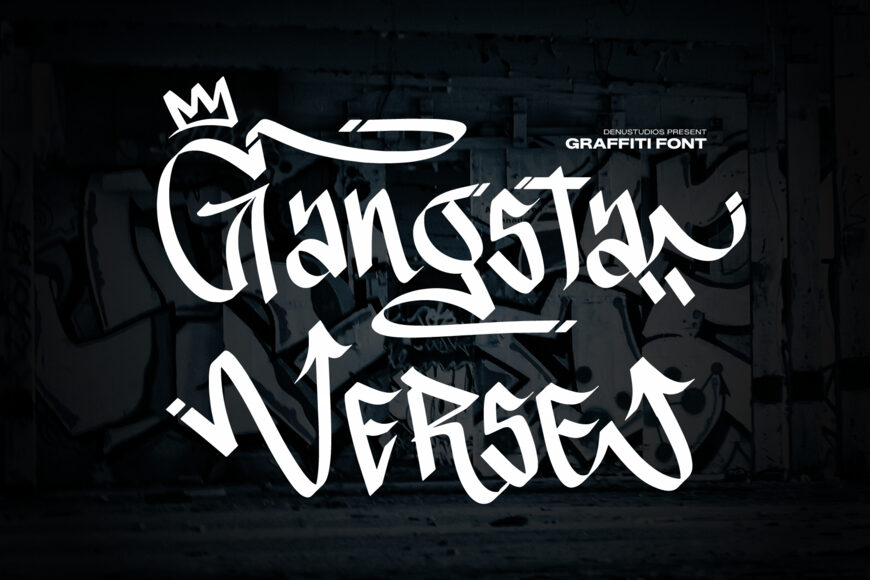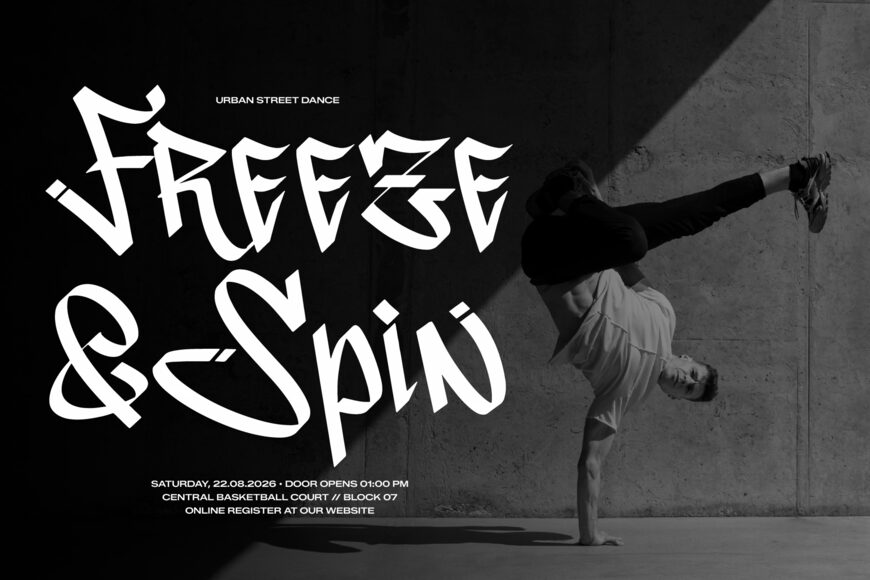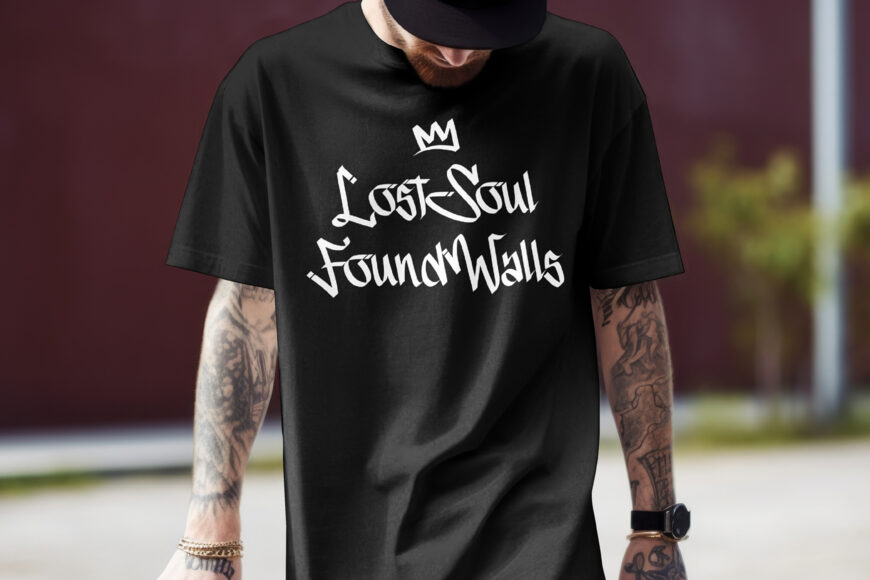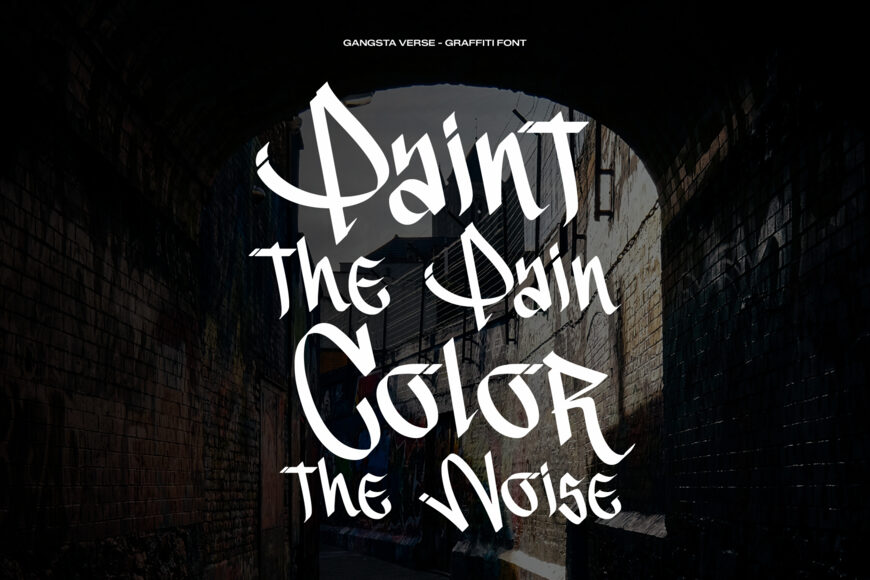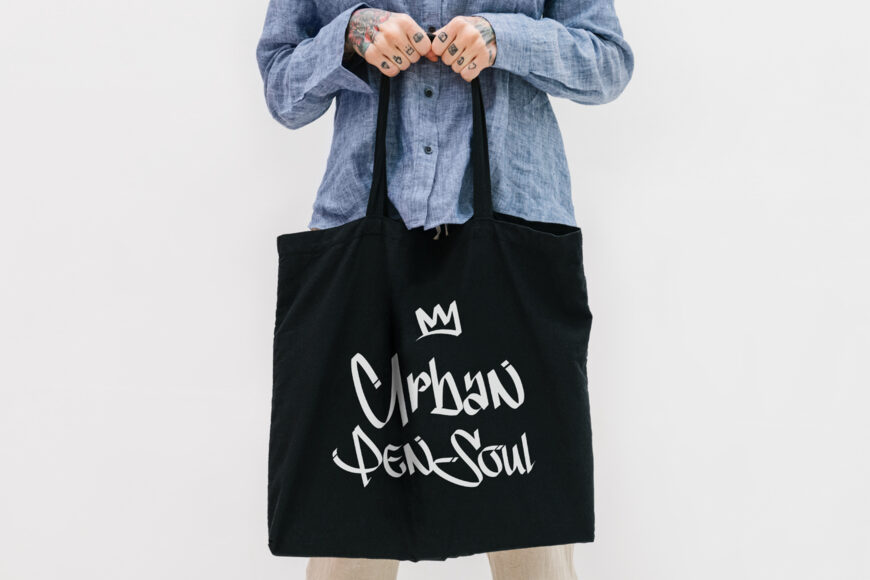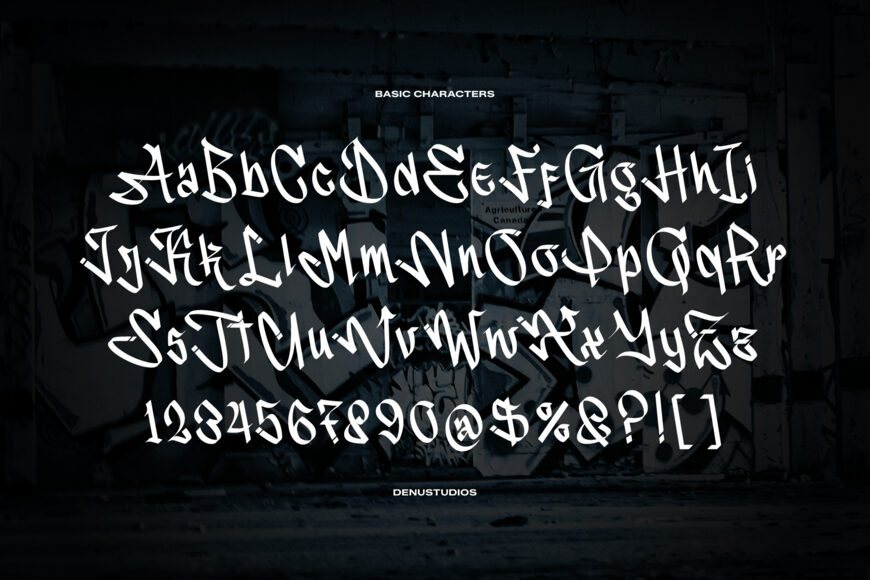
Dominate the underground scene with Gangsta Verses, an authentic street-style graffiti font! Drawing inspiration from classic chisel-tip calligraphy, wildstyle tagging, and West Coast urban lettering, this typeface features sharp angulated strokes, fluid swashes, and raw street attitude.
Whether you’re creating hip-hop album covers, streetwear merch, tattoo studio branding, poster headlines, or underground event graphics, Gangsta Verses brings a bold, rebellious edge that crowns your designs.